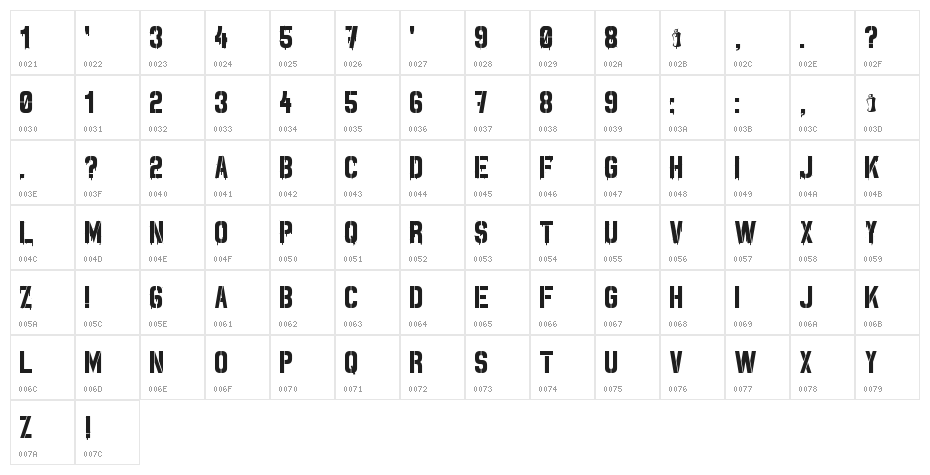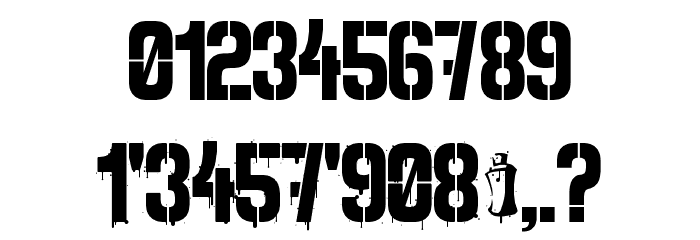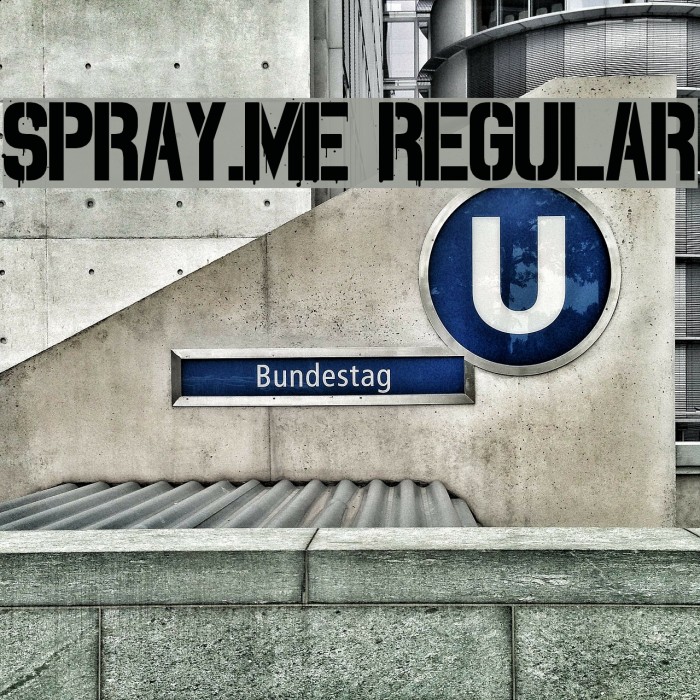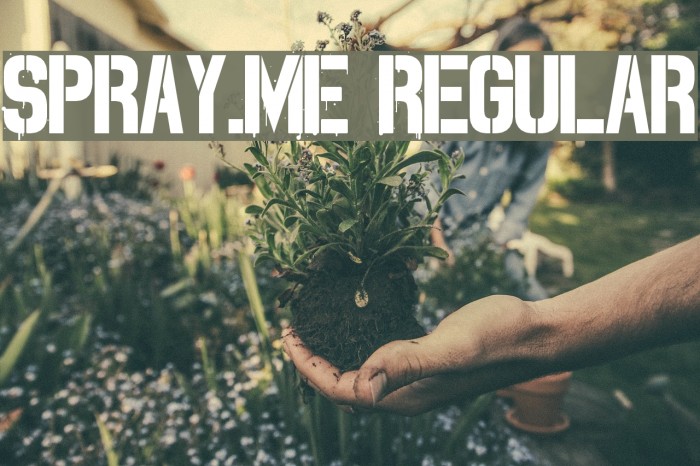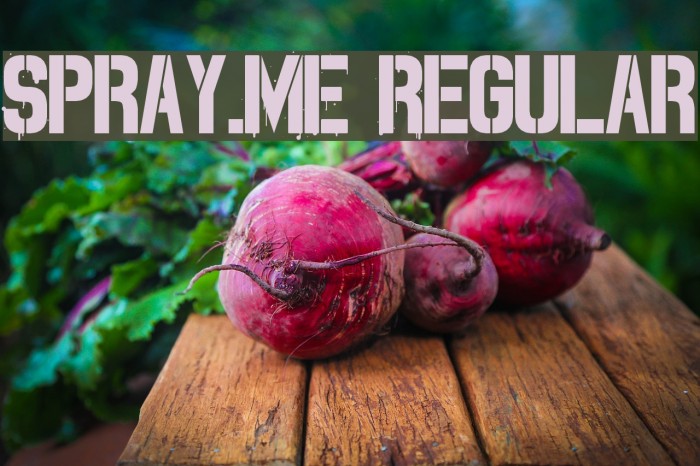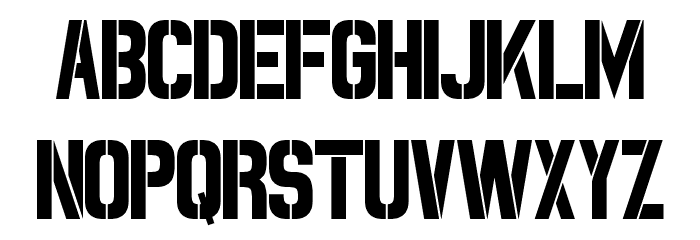
Spray.ME Regular Font
Spray.ME Regular Description
This font features a bold, urban style with a distinct spray paint effect, giving it a gritty, street-art appearance. The uppercase letters are prominent and impactful, with drips and splatters that mimic the look of graffiti. The numbers and special characters maintain this edgy aesthetic, making the font ideal for projects that require a rebellious or artistic flair. The overall design is both modern and expressive, capturing the essence of urban culture.
| Overall Style | Urban, Modern, Artistic |
| Proposed Projects | Ideal for street art posters, urban-themed branding, music album covers, and edgy event flyers. |